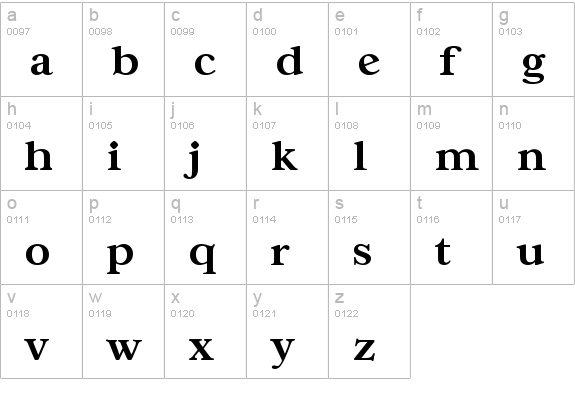
CasablancaSerial-Bold Font Details
CasablancaSerial-Bold is a strong, high-contrast variant in the CasablancaSerial typeface family \xE2\x80\x94 well suited to headlines, attention-grabbing titles, and strong calls-to-action.
CasablancaSerial-Bold font is a bold and striking typeface that exudes confidence and modernity. With its clean lines and sophisticated design, this font is perfect for making a bold statement in your projects. Whether you're creating a poster, logo, or website, CasablancaSerial-Bold will make your text stand out and grab the viewer's attention. The best part is that CasablancaSerial-Bold is available for free download at FontsMarket.com. You can easily access this stylish font and use it in your designs without any cost. Don't miss out on this opportunity to elevate your typography game with CasablancaSerial-Bold font. Download it now and make your creations truly unforgettable.